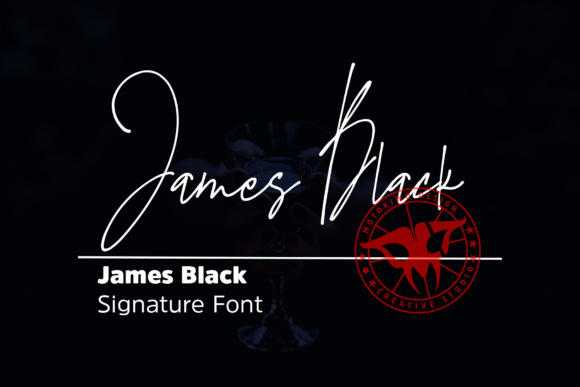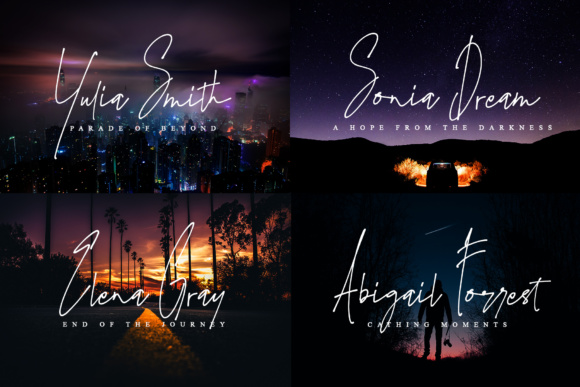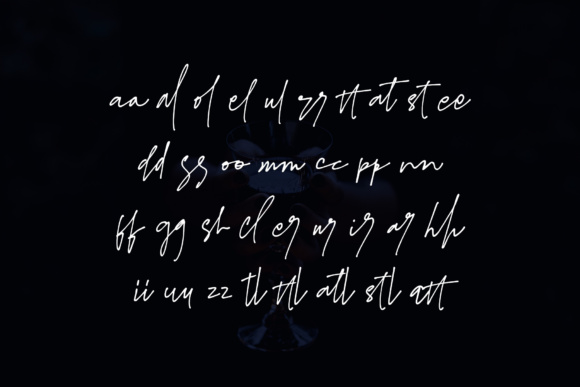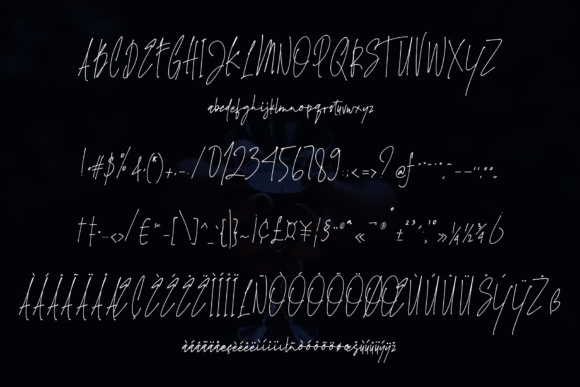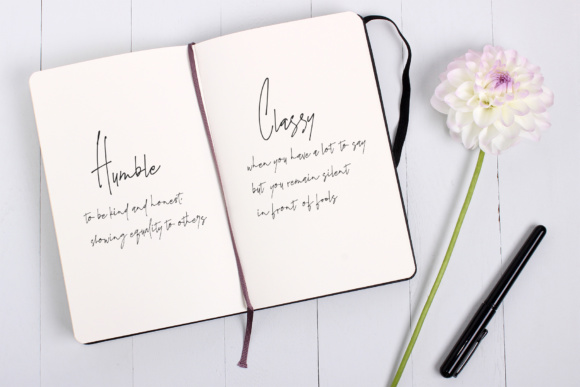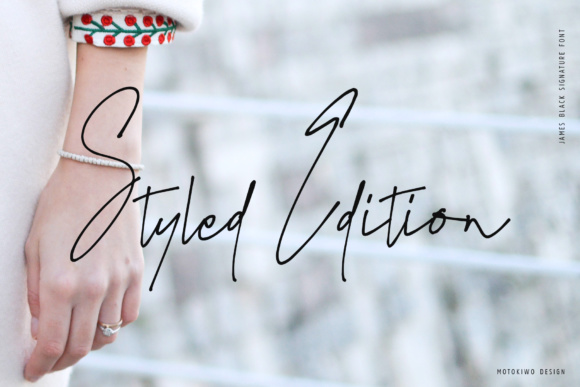
James Black Font
About James Black Font
James Black is an extra thin handwritten font which will give your design a high class personality. It’s perfect for businesses, personal designs, and much more!